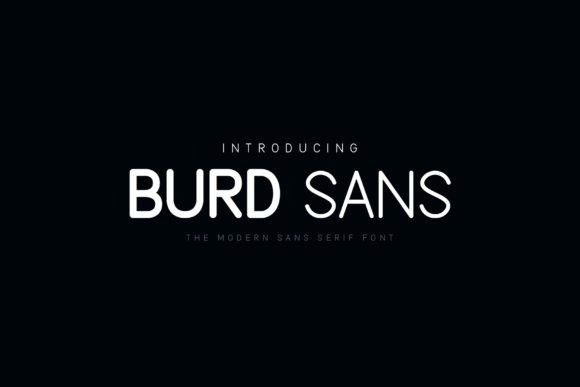
Unleash the Power of Clarity and Simplicity with Burd Sans: The Ultimate Sans Serif Font for Seamless Web Forms
In the world of digital interactions, first impressions matter. As users navigate through your web forms, the font you choose holds the key to creating a seamless and engaging experience. Burd Sans, the modern and elegant sans serif font, rises to the occasion, offering an unmatched blend of clarity, simplicity, and versatility.
Burd Sans possesses a clean and well-defined structure, ensuring optimal readability across diverse screen sizes and devices. Its simple yet captivating design draws users' attention to the form fields, guiding them through the process with ease. Whether it's personal data, preferences, or feedback, Burd Sans ensures that every character is presented with utmost precision and clarity.
Beyond its functional prowess, Burd Sans exudes a touch of sophistication that elevates the overall aesthetic of your web forms. Its understated beauty complements a wide range of design themes, allowing you to create forms that seamlessly integrate with your brand identity. From sleek and minimalist designs to vibrant and playful layouts, Burd Sans blends effortlessly, enhancing the user experience with a cohesive and visually appealing interface.